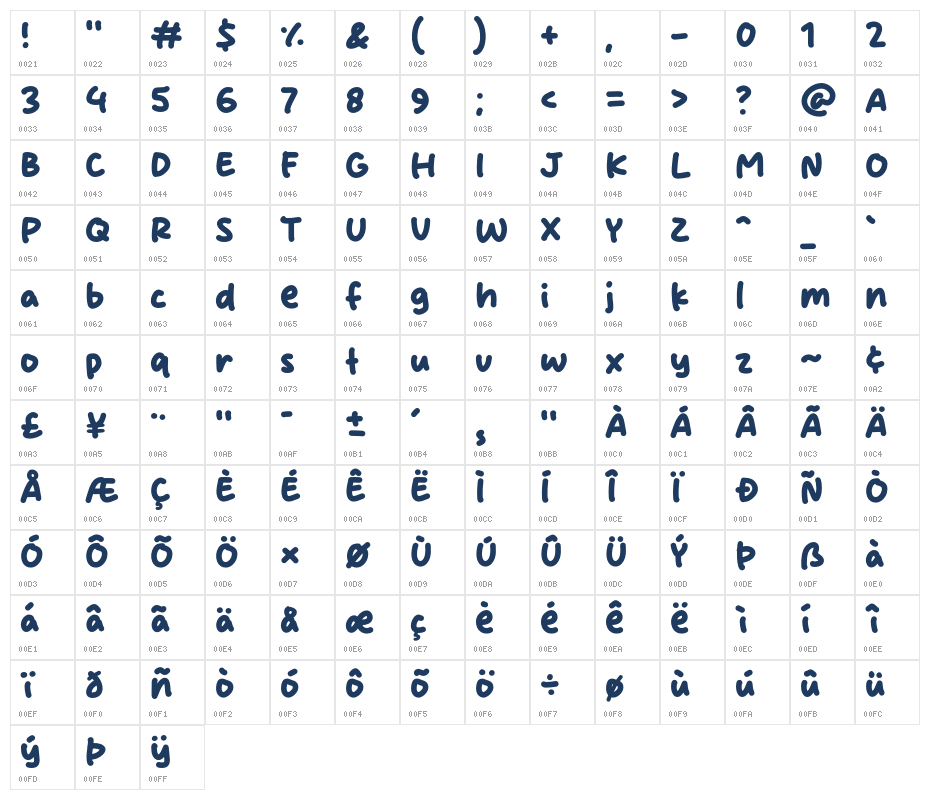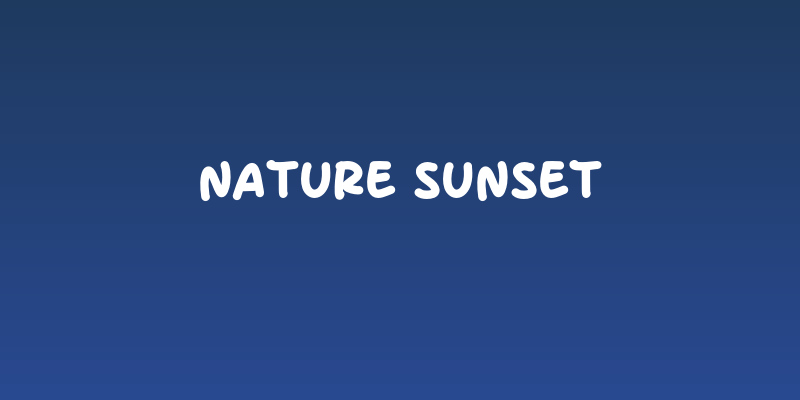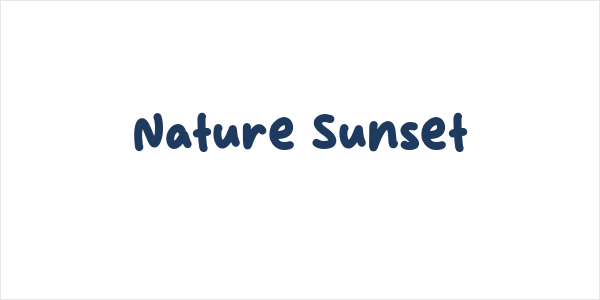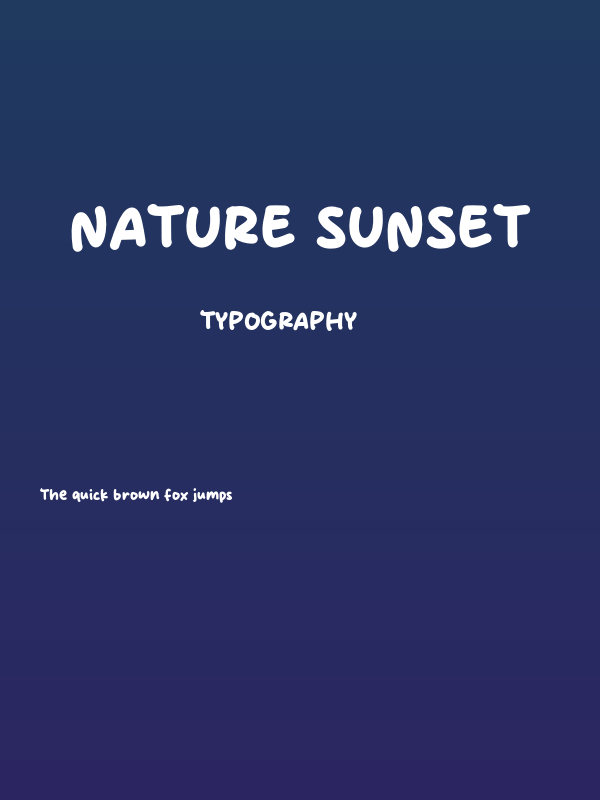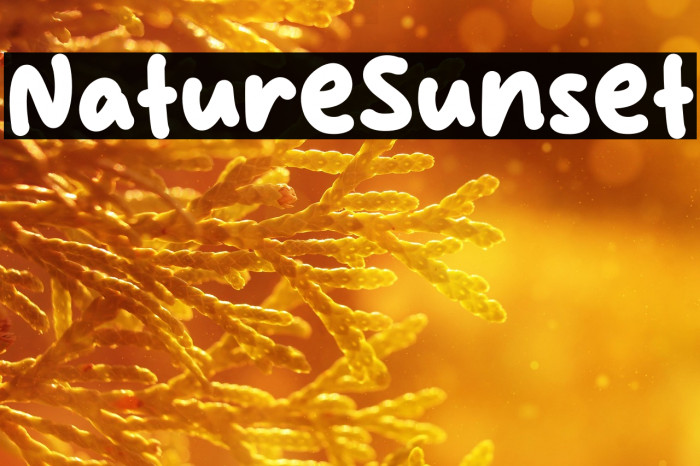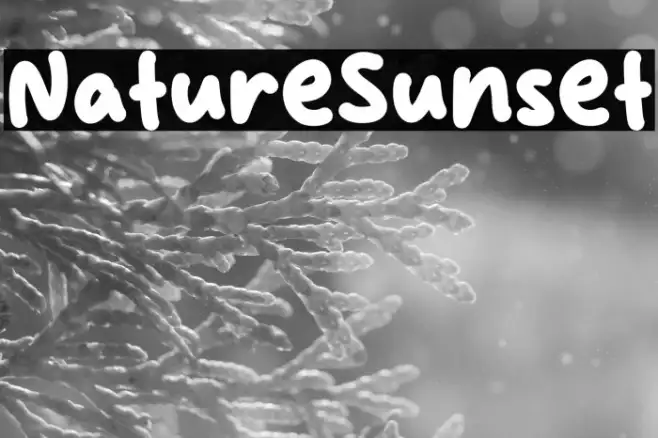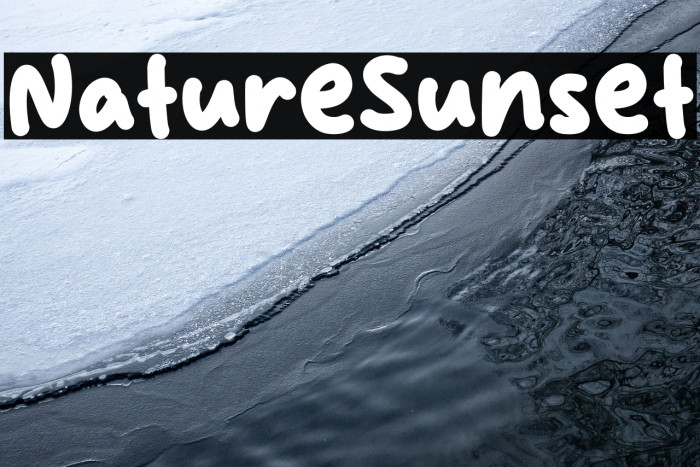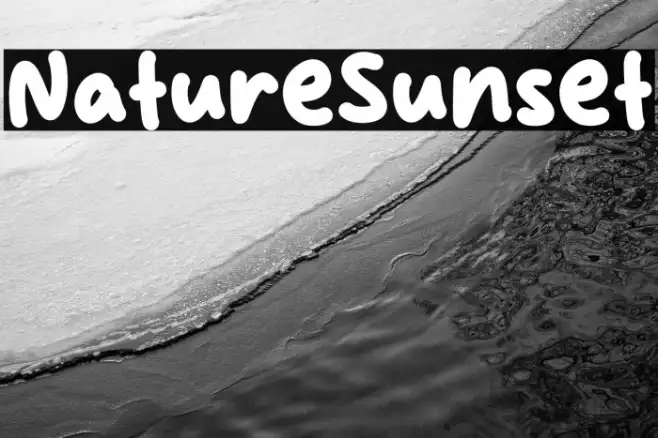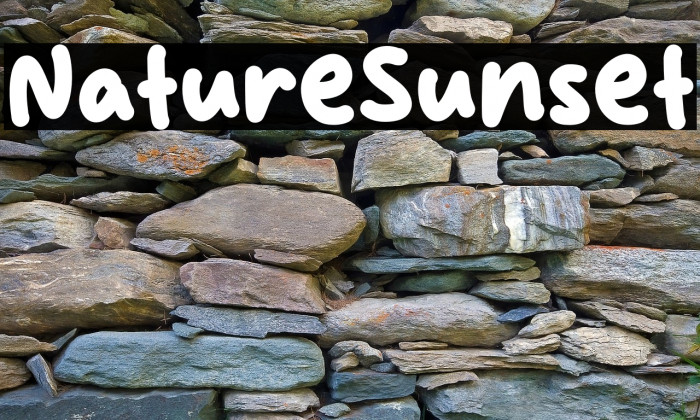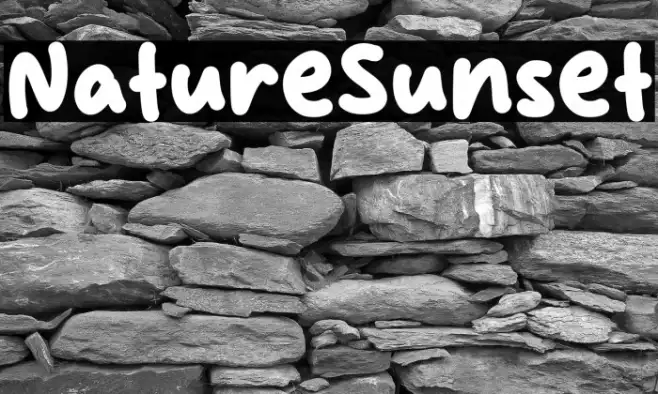
Nature Sunset Font
A playful, rounded, handwritten style font with bold, smooth curves and casual appearance.
| Overall Style | Casual, Friendly, Playful |
| Use Case | Headlines, Body text, Logos, Posters |